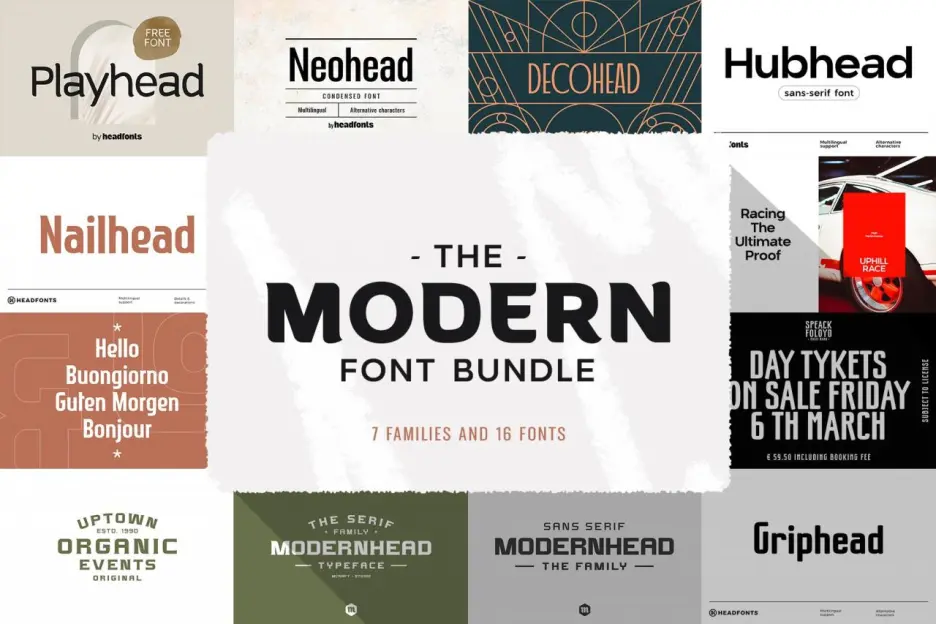
The Modern Font Bundle
The Modern Font Bundle features a carefully curated selection of contemporary typefaces designed to elevate your creative projects. This collection includes a variety of styles, from elegant serifs to bold sans-serifs, ensuring you have the perfect font for any occasion.
• Multiple font styles including serif, sans-serif, and display
• Variety of weights for versatile application
• 10 unique font families
• Numerals and punctuation
• Styles: Regular, Bold, Italic, and more
Utilize these fonts for branding, logos, web design, print materials, and user interfaces to create a cohesive and visually appealing aesthetic.